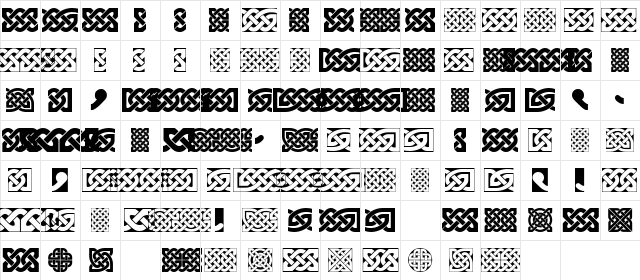
Figheadh Plain
Design Context for Figheadh Typeface
Figheadh is a composed and adaptable typeface that performs quietly and consistently across a wide range of design contexts.